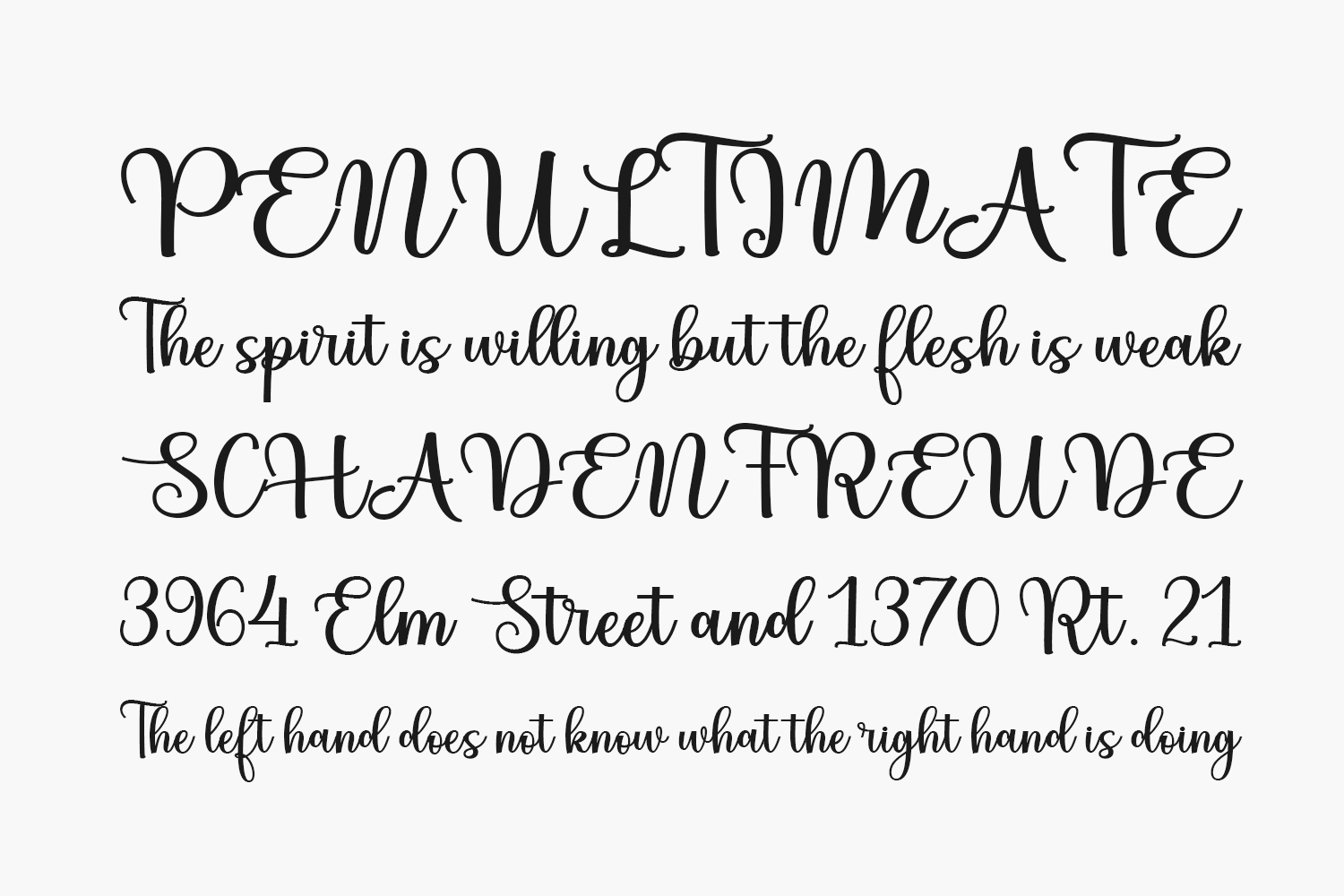
Introducing Glowing Shine Free Font – a captivating and refined script font designed to elevate your projects. Whether you’re working on branding ventures, home appliance designs, product packaging, business cards, or enchanting invitation cards, this font adds a touch of sheer elegance to any endeavor. Glowing Shine Free Font is free for personal use only. Please purchase the full version for commercial use.